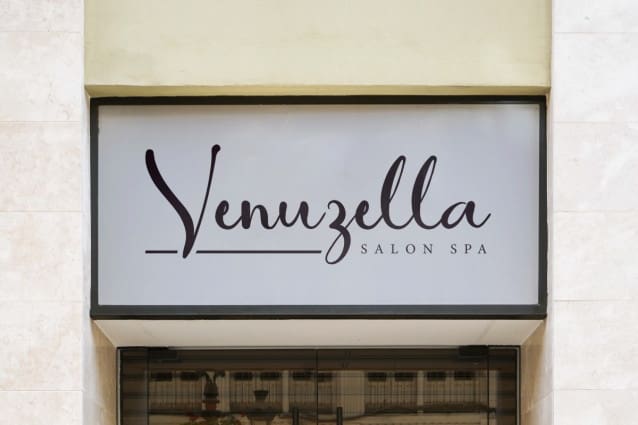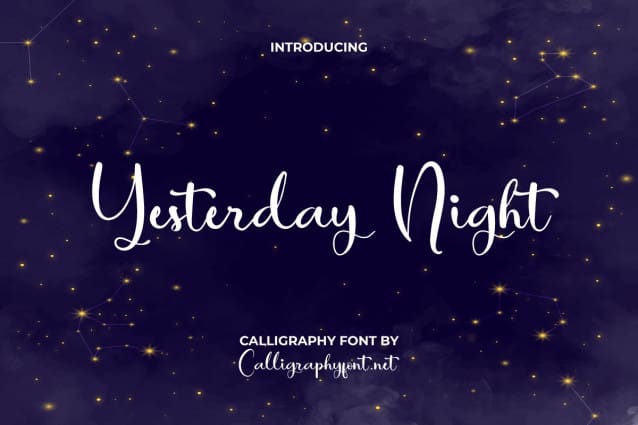
Yesterday Night Script Font
Yesterday Night Script Font is a lovely calligraphy script font with swinging curves on the letters. This font can make your design completely perfect, but is still easy to read. It’s perfectly made to apply especially to any creative project, such as advertisement post, brand logo, cover, custom design, invitation, label, packaging, quote, screen print, website, and many more!